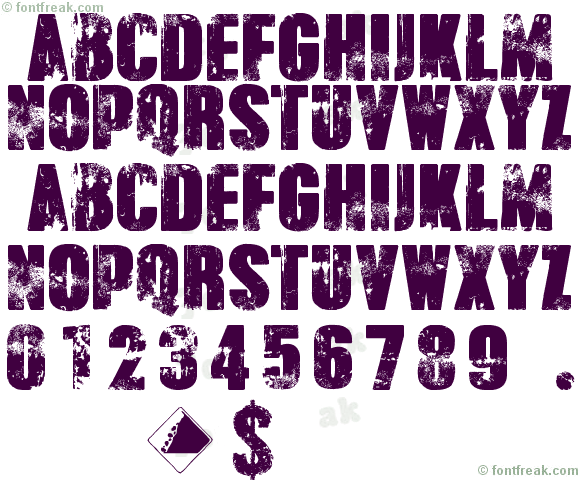
Broken Detroit
About Broken Detroit
Broken Detroit is a striking display font designed by Guilhem Greco and released under a freeware license. This unique typeface falls into the category of decorative fonts, characterized by its rugged, distressed appearance that evokes a sense of urban grit and industrial charm. The font features bold stroke weights with significant contrast, creating an eye-catching visual impact. The uneven spacing and rough edges give it a raw, unrefined look, perfect for projects that seek to convey an edgy and modern aesthetic.
The Broken Detroit font is particularly well-suited for a variety of creative applications. Its bold, attention-grabbing style makes it an excellent choice for movie posters, where it can effectively communicate themes of rebellion or action. Additionally, it works beautifully for restaurant menus that aim for a trendy, contemporary vibe, especially in urban settings. Graphic designers may find it ideal for branding projects, providing a distinctive look for logos or business signage. Furthermore, the font is a great option for album covers, allowing musicians to visually express their artistic identity. Content creators can also leverage Broken Detroit for social media graphics, ensuring their posts stand out in a crowded digital landscape.
Targeting graphic designers, small business owners, and content creators, this font offers a unique solution for those looking to make a memorable impression. The Broken Detroit font free download allows users to easily access this dynamic typeface without any cost, encouraging creative exploration. What sets Broken Detroit apart is its ability to blend a sense of history with modern design elements, making it a versatile choice for a wide range of projects. Whether you’re designing for print or digital mediums, this font brings an unmistakable character that can elevate your work.